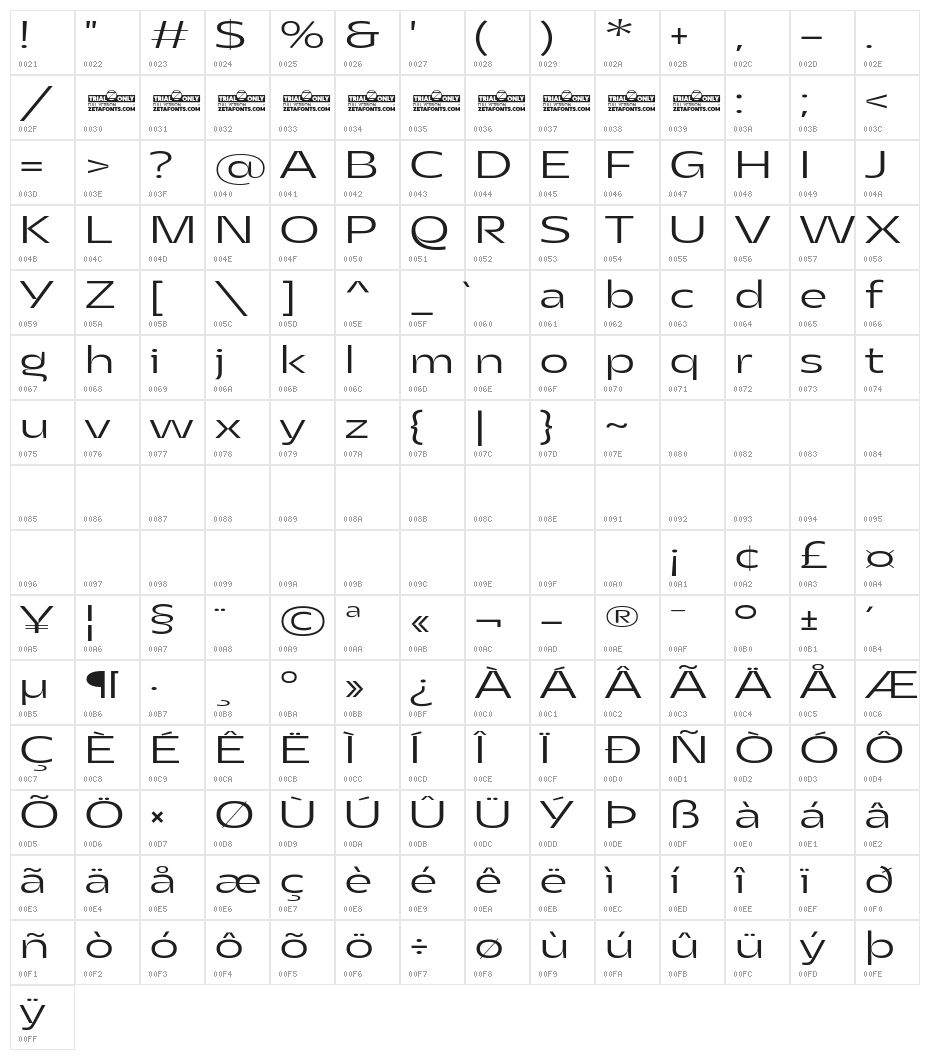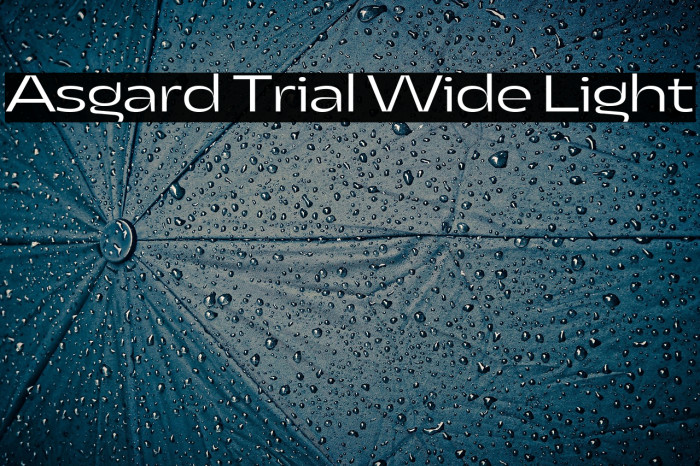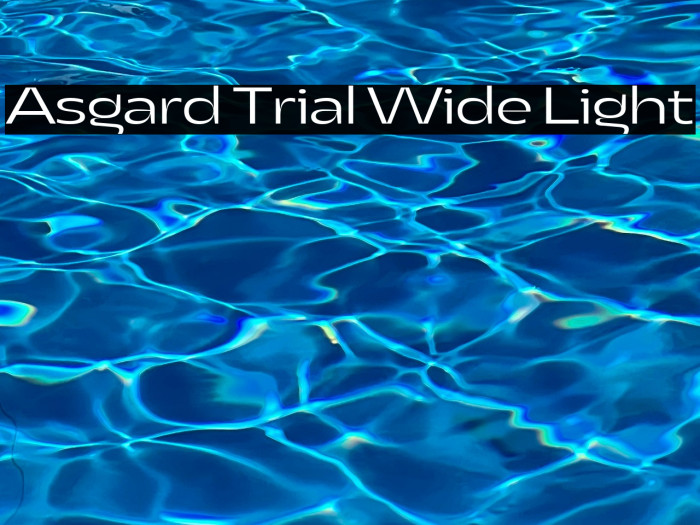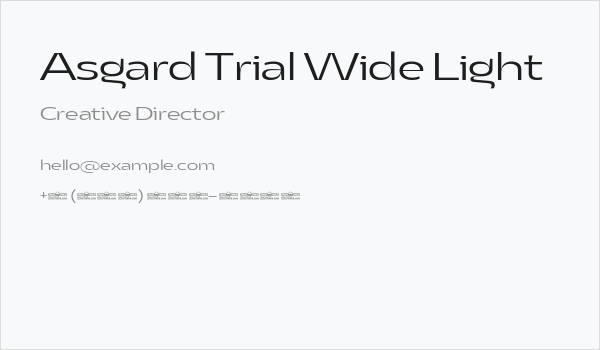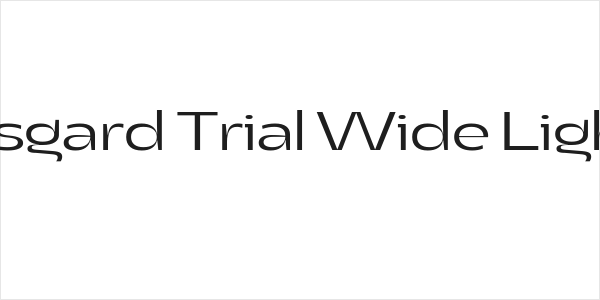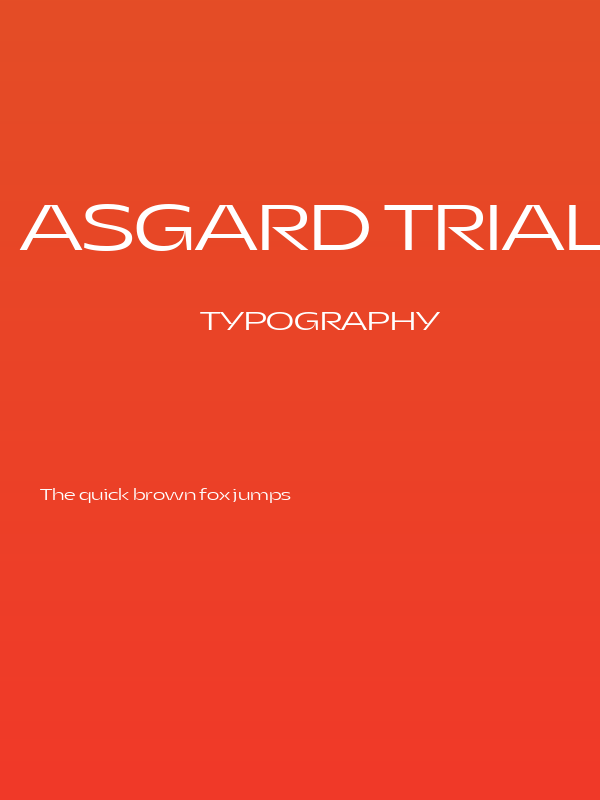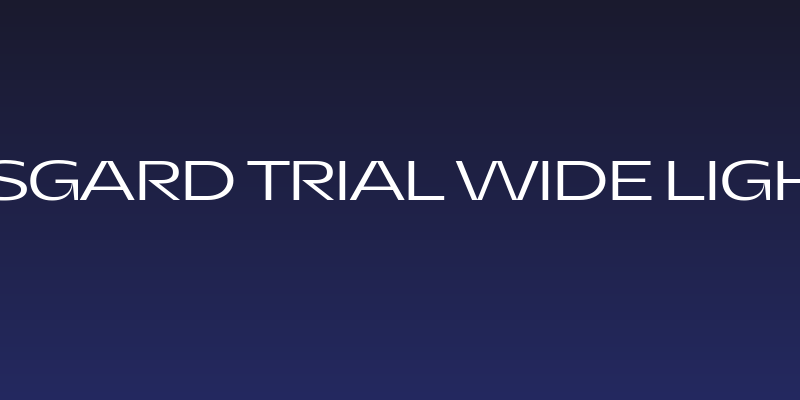
Asgard Trial Wide Light Font
Asgard Trial Wide Light Description
This font features a sleek and modern design with clean lines and a geometric structure. The characters are wide and have a light weight, giving them an airy and open appearance. The uppercase letters are bold and assertive, while the lowercase letters maintain a consistent style with slightly rounded edges. The numerals and special characters are designed to match the overall aesthetic, providing a cohesive look across all elements. The font's simplicity and clarity make it suitable for a variety of design applications.
| Proposed Projects | Ideal for branding, advertising, and editorial design projects where a modern and clean aesthetic is desired. |